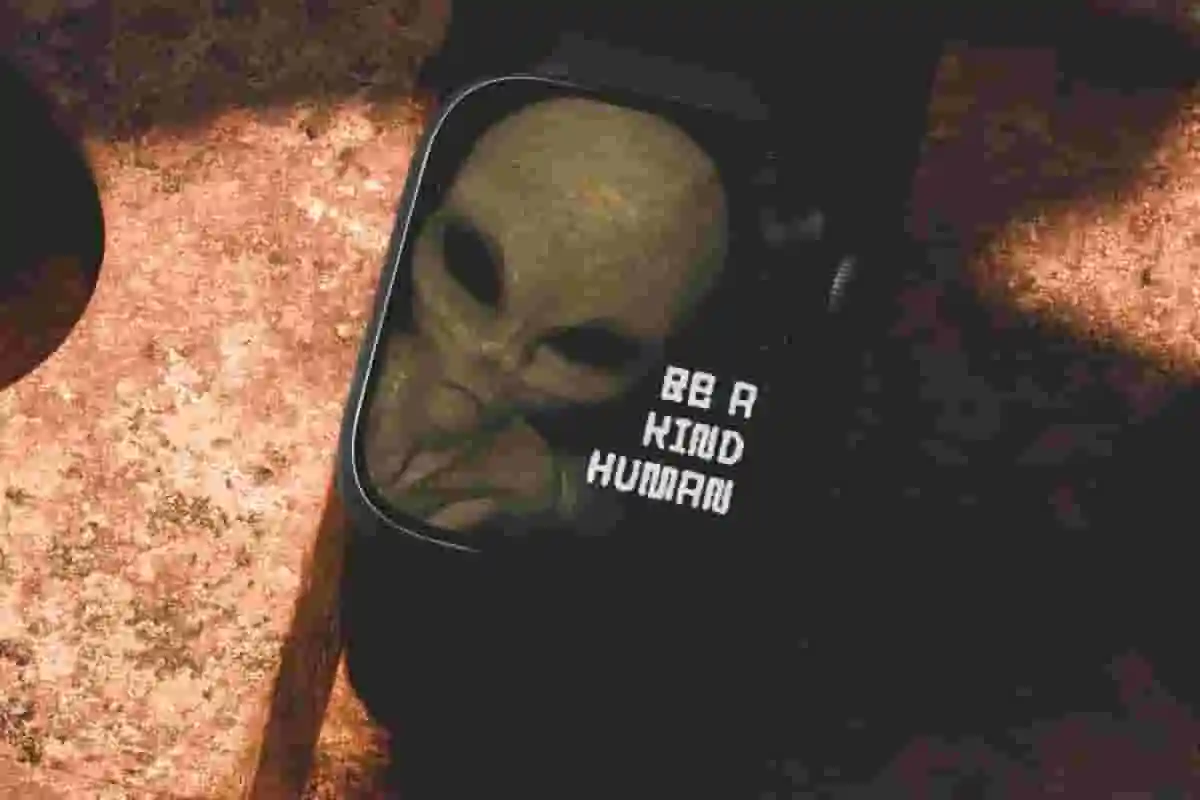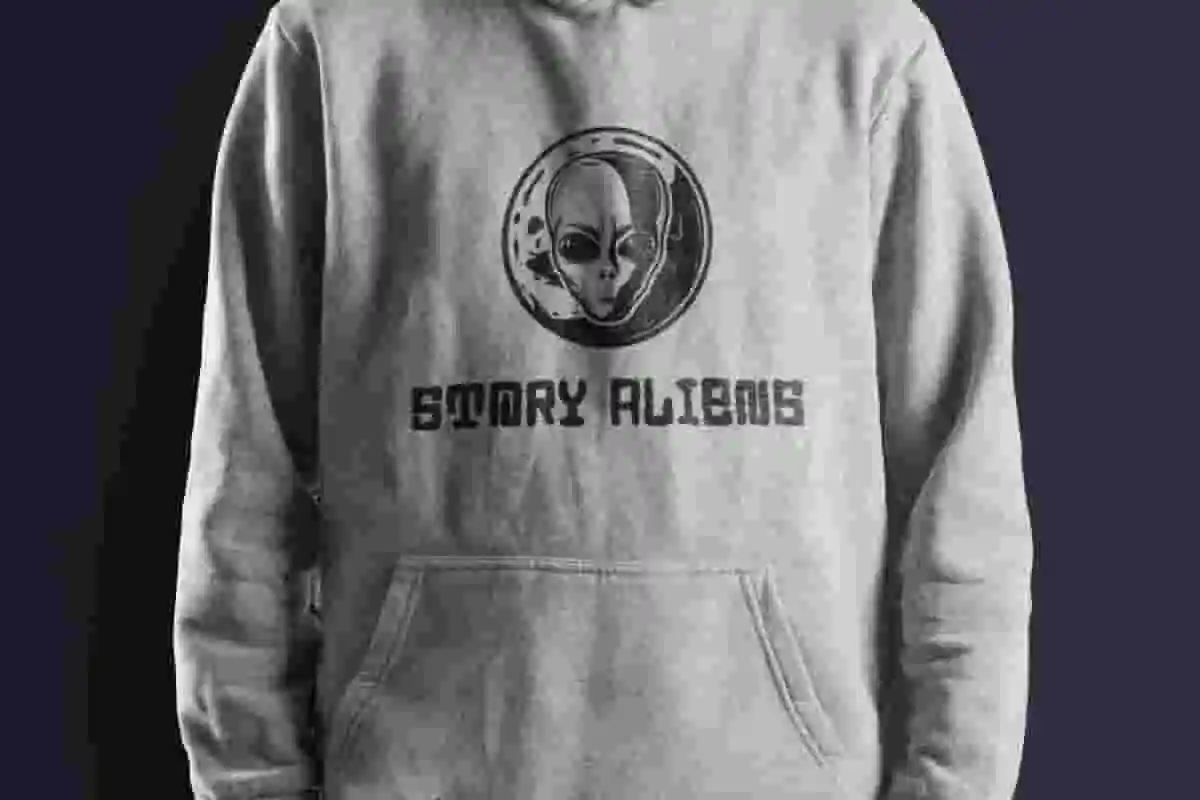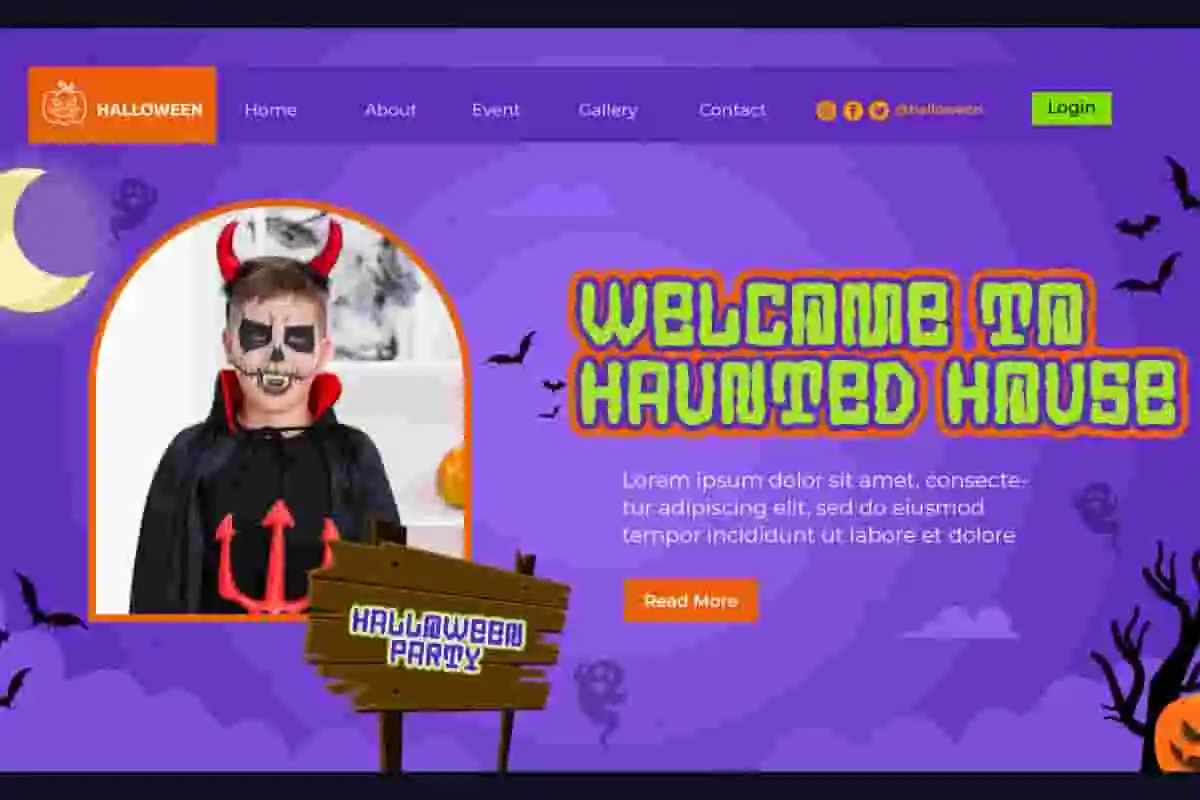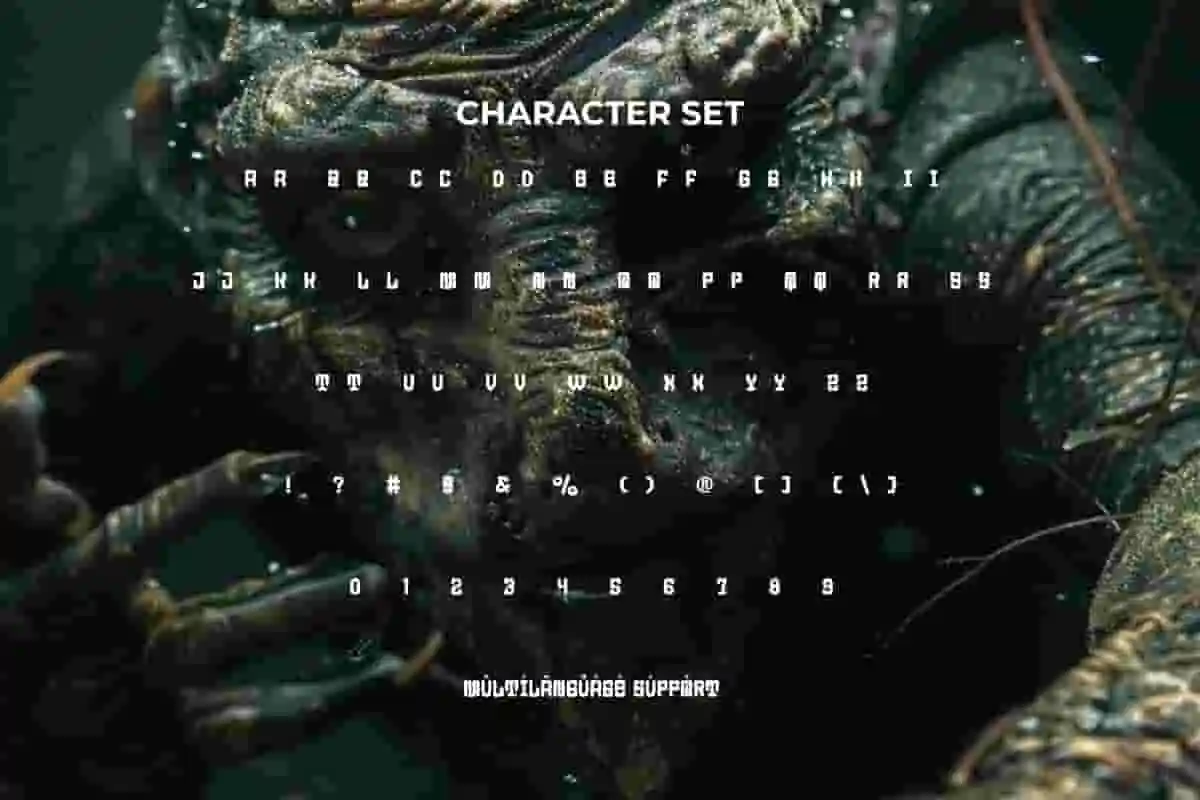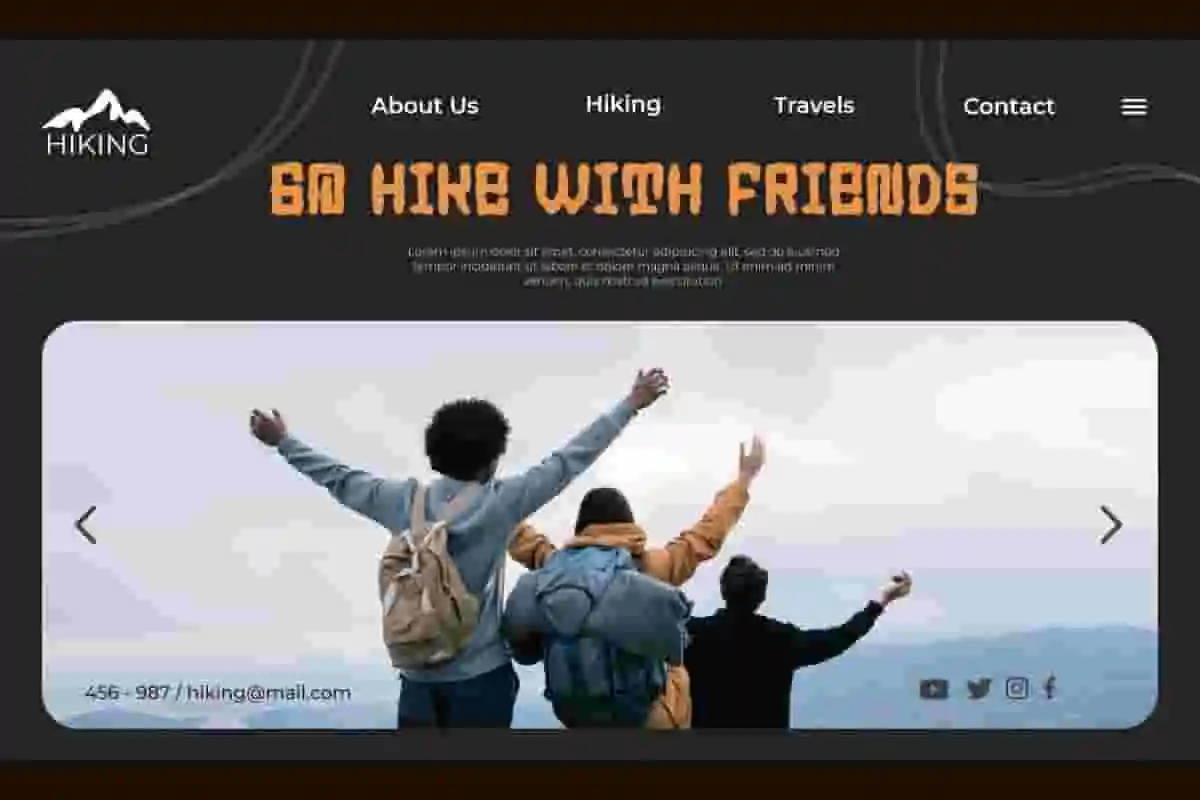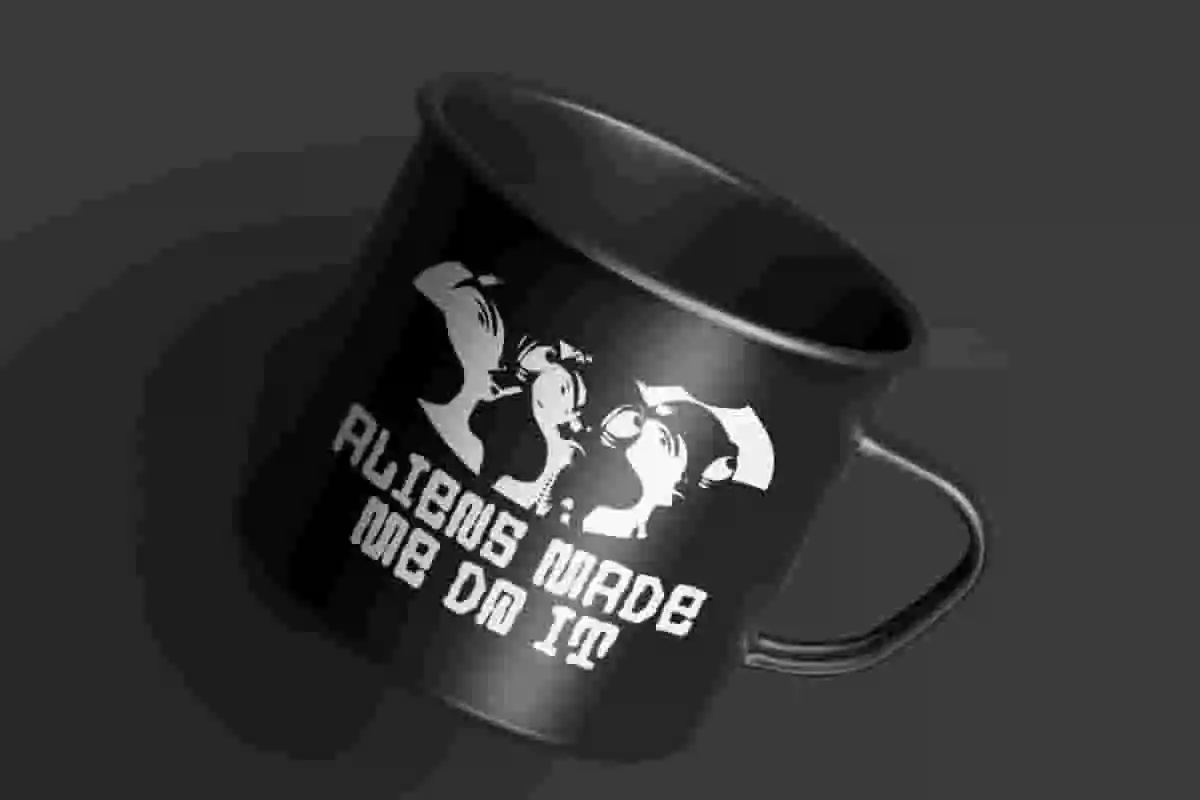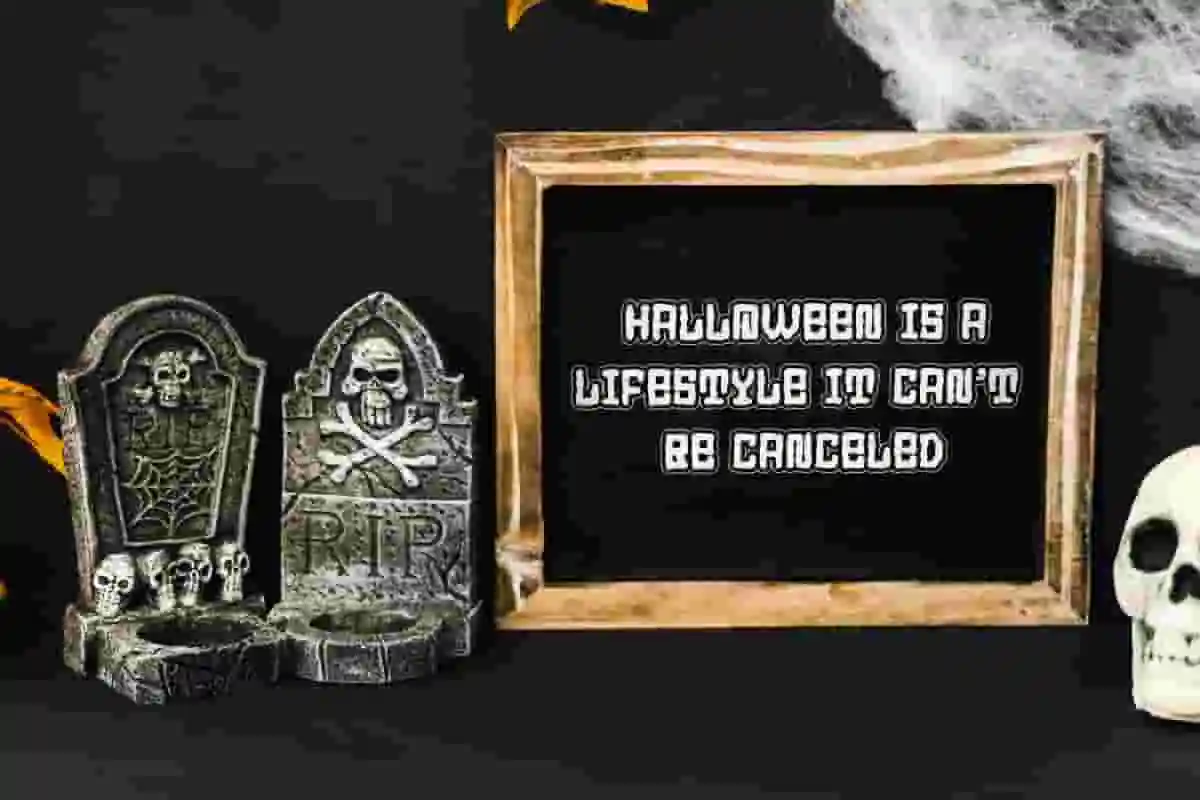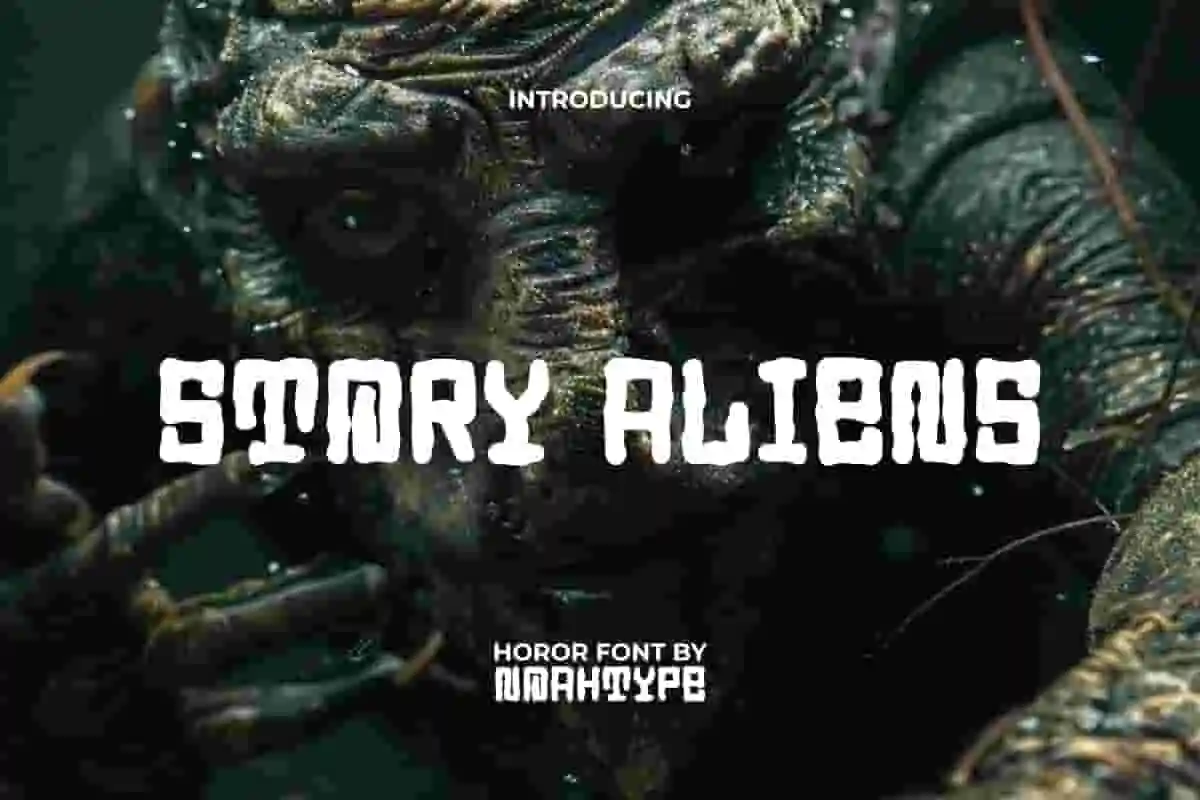
Story Aliens Font is a fun spooky horror mysterious yet playful display font by NoahType. The uniqueness of this font lies in its unclear shape, making it look like it was brought by aliens from outer space. This font will be suitable for a lot of projects, such as custom design, stationery, label, poster, signage, catalog, cover, quotes, website, and more!
Story Aliens Font includes full set of Uppercase and Lowercase Basic Characters, Numerals and Punctuation. This horror font will make you believe it is the perfect choice for many industries, such as game, fashion, movie, advertisement, café, event organizer, printing, publishing, etc.